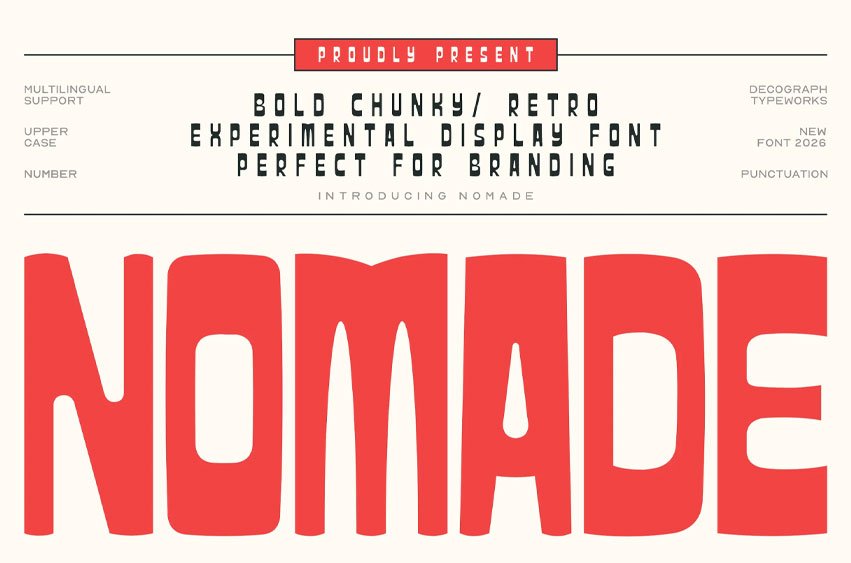
Nomade Font Bold Chunky Modern Display Font is a strong and contemporary typeface built with thick geometric shapes and clean structure.
Its bold presence and simplified forms create a modern visual identity that feels confident, minimal, and highly impactful. The unique letter construction adds an experimental edge while maintaining clarity and readability.
Best Used For:
- Logo Design
- Branding Projects
- Poster Design
- Packaging Design
- Editorial Headlines
- Advertising Campaigns
- Social Media Graphics
- Merchandise Design
Font Features:
- Uppercase Letters
- Numbers And Punctuation
- Multilingual Support